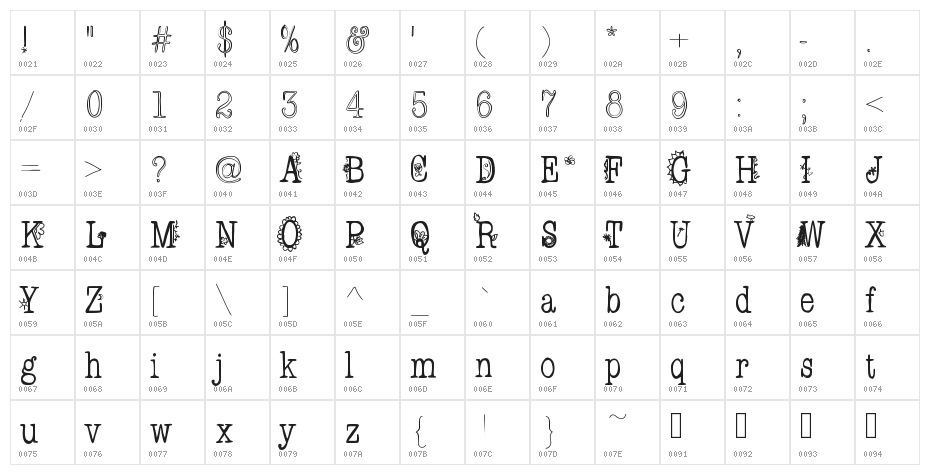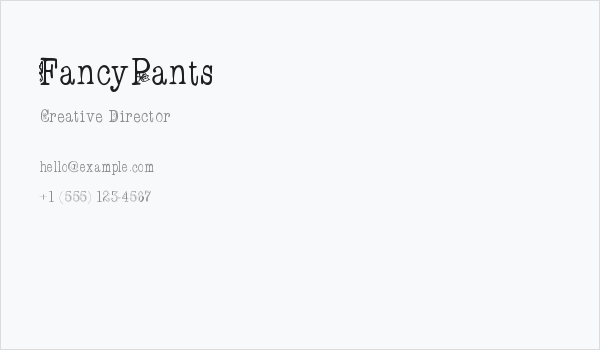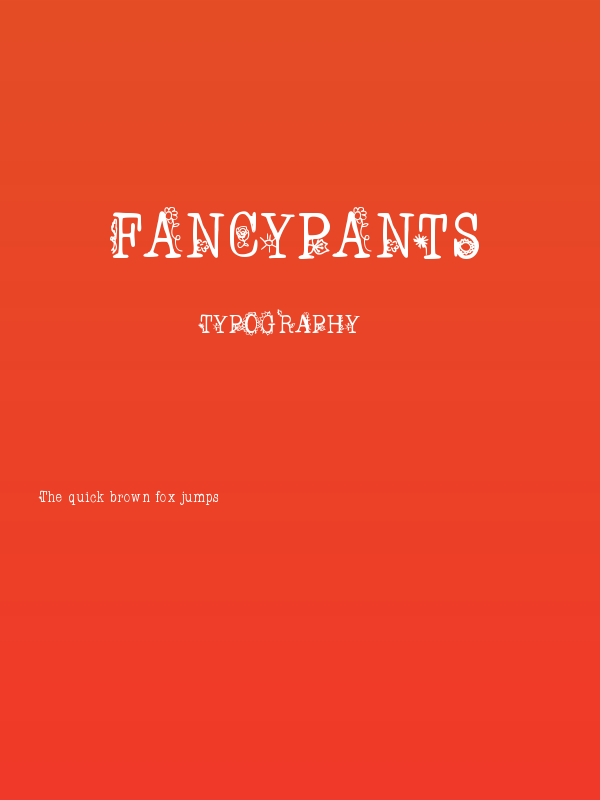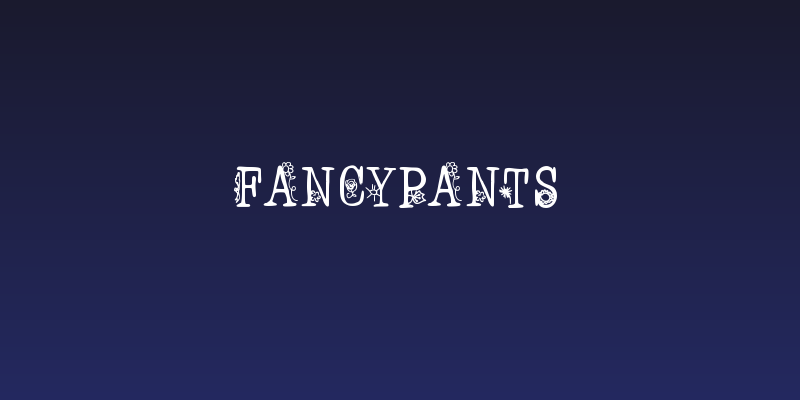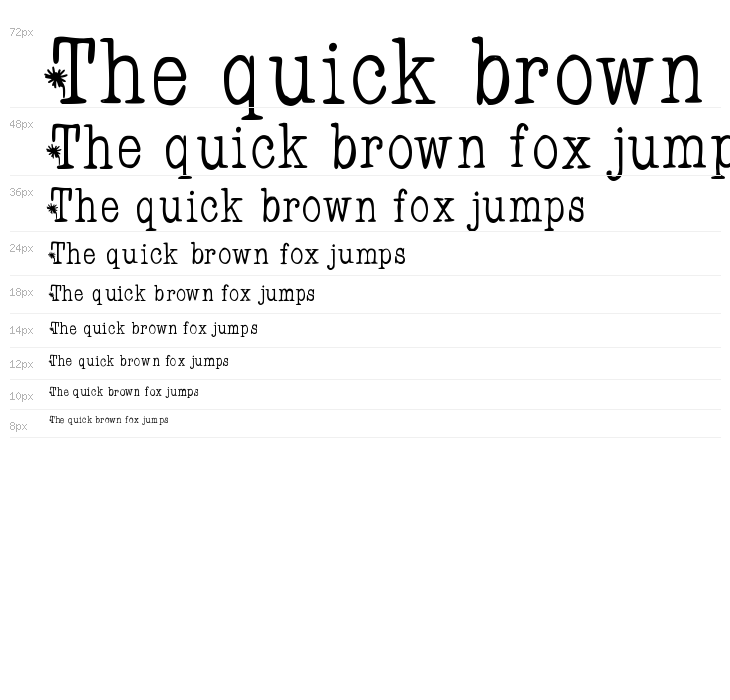
FancyPants Font
FancyPants Description
This whimsical and decorative font features playful embellishments on its uppercase letters, incorporating floral and nature-inspired elements that add a unique flair. The lowercase letters maintain a more traditional serif style, providing a balance between creativity and readability. The numbers are outlined with a slight shadow effect, enhancing their visual appeal. Special characters are designed with a similar playful touch, making them stand out. This font is ideal for projects that require a fun and engaging aesthetic, such as children's books, invitations, or creative branding.
| Proposed Projects | Children's books, invitations, creative branding, playful posters. |